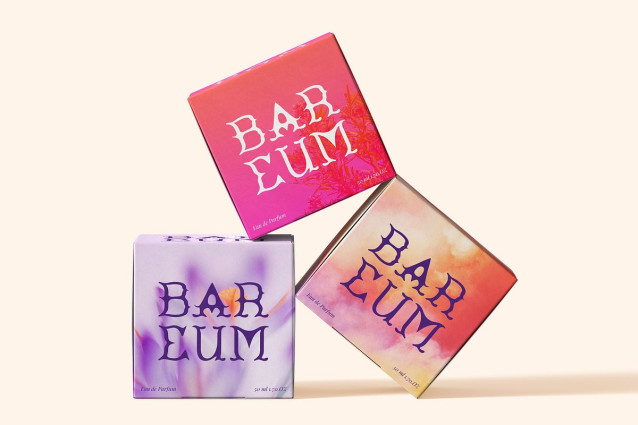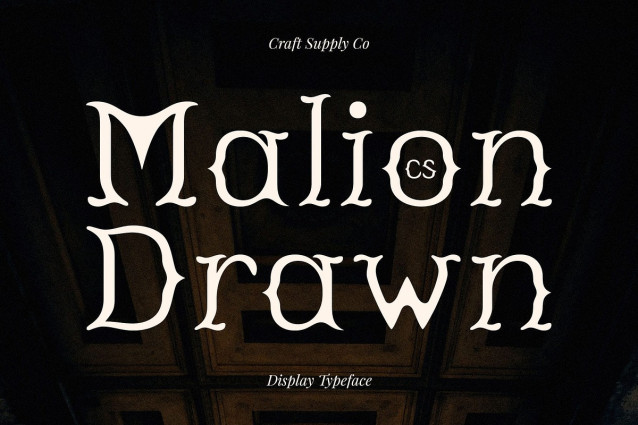
CS Malion Drawn Font is a modern-classic display serif font featuring clean, decorative, and contemporary letterforms. Its precise structure is enriched with a subtle drawn effect, adding artistic texture that makes each character feel lively and handcrafted.
Artistic Detail Meets Modern Elegance The font combines classic stylistic influences with modern design sensibilities. Its decorative details and drawn texture create a visual balance between elegance and freshness, giving your projects a refined yet expressive look.
Perfect for Creative and Luxury Projects This timeless and sophisticated font is ideal for posters, branding, logos, editorial designs, and other creative projects that aim to convey sophistication and uniqueness. Its distinctive style ensures your designs stand out while maintaining a polished, professional appearance.
Versatile for Expressive Visuals Whether used in large-scale headlines or detailed design compositions, this vintage-modern fusion font adapts beautifully across applications. Its combination of clarity, decorative flair, and artistic texture provides designers with a versatile tool for creating memorable, stylish, and visually engaging typography.
A Typeface That Blends Tradition and Innovation By combining clean modern forms with classic decorative touches and a handcrafted drawn effect, this artistic and expressive font delivers a font that is both elegant and contemporary. It’s a versatile choice for designers seeking sophistication and originality in every project.